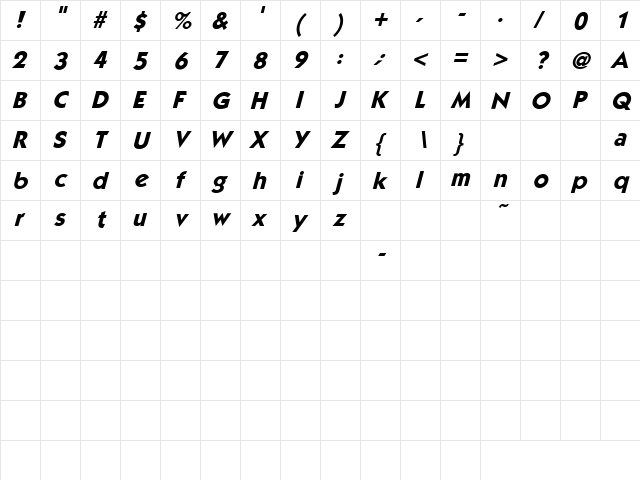
Mouser Italic Italic
Design Context for Mouser Italic Typeface
Mouser Italic is a composed and adaptable typeface that performs quietly and consistently across a wide range of design contexts. The dynamic lean of this cut emphasises speed and emphasis in any layout.
Pro Tip: Use Mouser Italic for emphasis, pull quotes, and subheadings where its slanted energy can add rhythm to the layout.